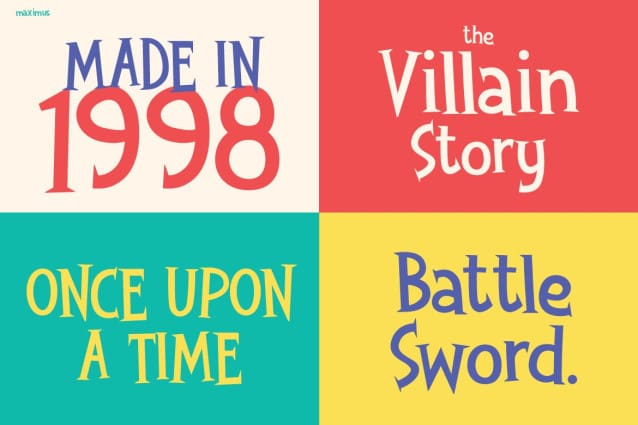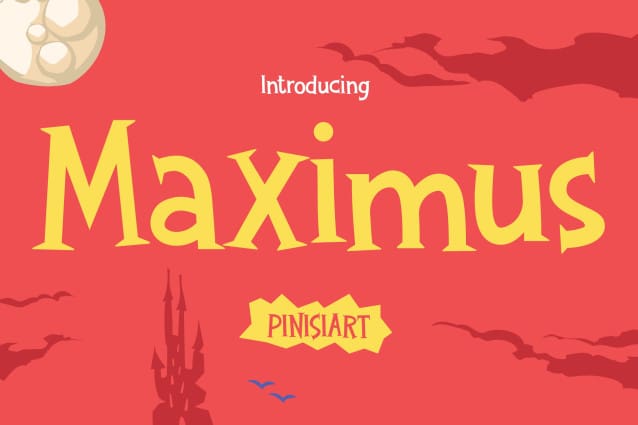
Maximus Font
Maximus Font is not just a font — it’s a world of fun and creativity brought to life! Designed with smooth curves, bouncy shapes, and joyful energy, this font captures the pure spirit of childhood imagination. Every letter feels cheerful and expressive, making your design instantly more engaging. Moreover, its rounded edges and hand-drawn balance give it a friendly look that feels both modern and timeless.
Because of its bold personality, Kids Font Maximus turns simple words into delightful art. The letters seem to dance on the page, adding rhythm and charm to every title or headline. As a result, your projects gain warmth, character, and a touch of playfulness that everyone will love. Whether you’re creating children’s books, educational posters, or event invitations, this font brings out the fun in every design.
Furthermore, it blends readability with creativity — so it looks great on both print and screen. From bright classroom walls to digital story apps, Maximus ensures that your message is not only seen but also felt.